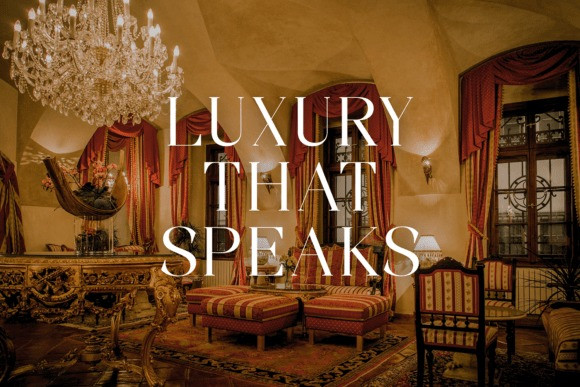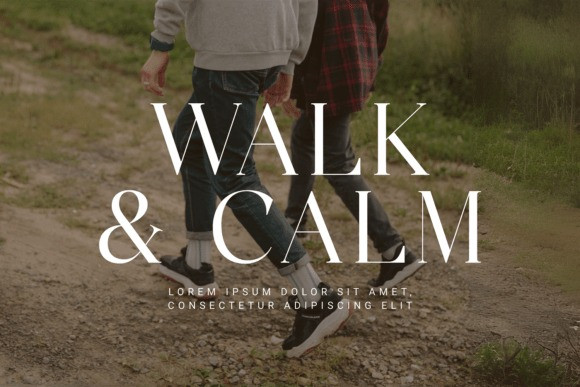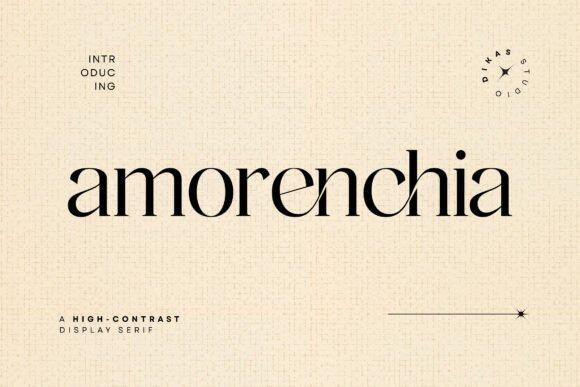
Amorenchia Font
Amorenchia Font is a sophisticated serif font with a clean, sharp, and rigid structure that exudes timeless elegance. With its thin strokes and precise letterforms, this typeface is designed to bring class and clarity to high-end visual projects.
Featuring a beautiful set of alternate characters and stylish ligatures, Amorenchia offers flexibility and flair for designers seeking refined typography. Perfect for fashion editorials, luxury branding, beauty packaging, and elegant logos, it gives every design a polished and upscale look.
Elevate your visual identity with Amorenchia — where elegance meets precision.